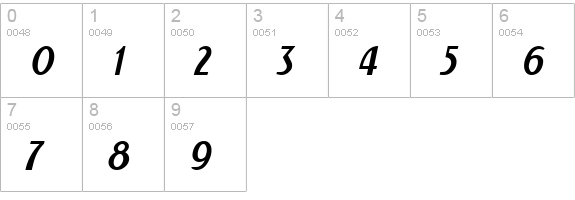
NewForum Italic Font Details
NewForum Italic is a distinctive, italic variant in the NewForum typeface family \xE2\x80\x94 well suited to design and typography projects.
Introducing NewForum Italic font - a sleek and modern typeface that exudes sophistication and elegance. The italicized design adds a touch of flair to any project, making it perfect for branding, editorial content, and more. With its clean lines and stylish appearance, NewForum Italic font is sure to make a statement. The best part? This stunning font is completely free to download at FontsMarket.com. Whether you're a designer looking to add a touch of class to your creations or a business wanting to elevate your branding, NewForum Italic font is the perfect choice. Download it today and take your projects to the next level with this exquisite typeface.